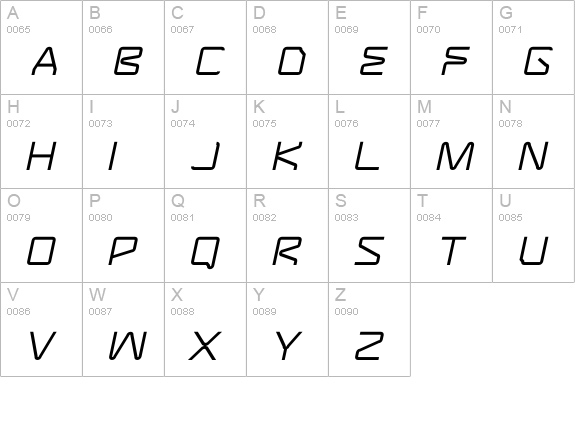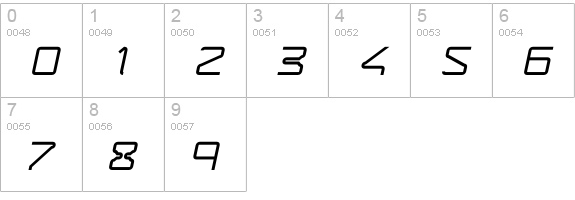
Assembler-Oblique Font Details
Assembler-Oblique is a distinctive, italic variant in the Assembler typeface family \xE2\x80\x94 well suited to design and typography projects.
Introducing Assembler-Oblique font, a sleek and modern typeface perfect for adding a touch of sophistication to your designs. With its sharp angles and oblique style, this font exudes a sense of confidence and edginess. The Assembler-Oblique font is versatile and can be used for a wide range of projects, from branding to editorial design. The best part? This stylish font is available for free download at FontsMarket.com. Don't miss out on the opportunity to elevate your designs with the Assembler-Oblique font. Download it today and unleash your creativity!